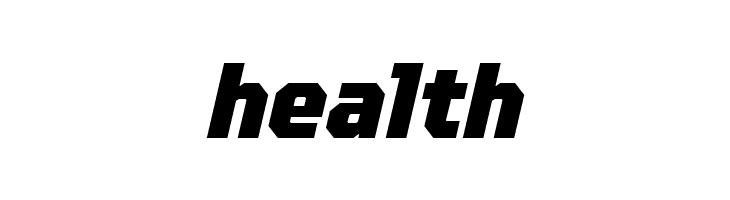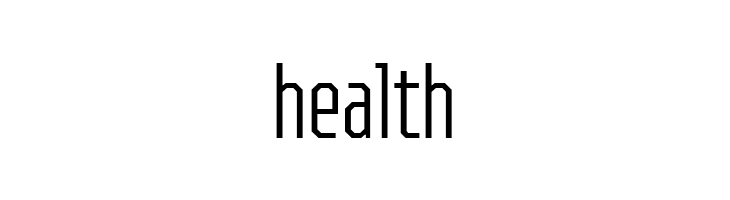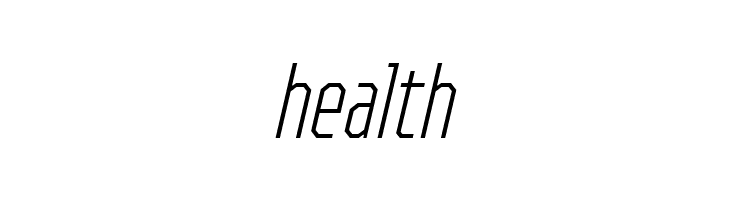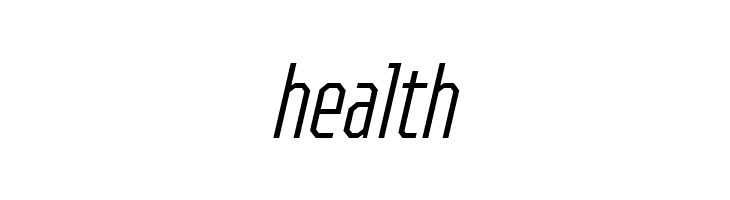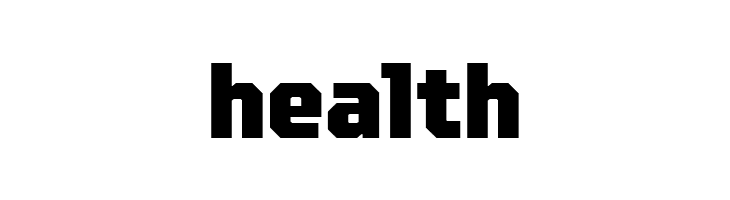
A geometric, angular font with a modern and dynamic style.
A bold, geometric font with a modern and industrial style.
A bold, angular, and geometric font with a dynamic slant.
A geometric, modern font with octagonal shapes and clean lines.
A modern, geometric, and italic font with a sleek, angular design.
A bold, geometric font with a modern, condensed style.
A bold, condensed, and italicized font with a modern, tech-inspired aesthetic.
A bold, condensed, and italic geometric font with a modern flair.
A bold, geometric font with angular and condensed letterforms.